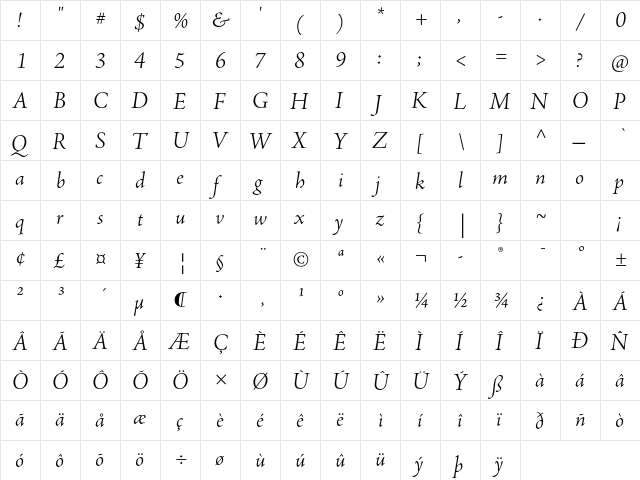
Adobe Jenson Pro Light Italic Subhead
| Designer | Robert Slimbach |
Design Context for Adobe Jenson Pro Typeface
Adobe Jenson Pro is a composed and adaptable typeface that performs quietly and consistently across a wide range of design contexts. The dynamic lean of this cut emphasises speed and emphasis in any layout. The delicate stroke weight brings airiness and refinement to layouts.
Pro Tip: Try Adobe Jenson Pro for annotation and caption copy alongside an upright companion — the contrast in angle creates a dynamic but ordered typographic system.